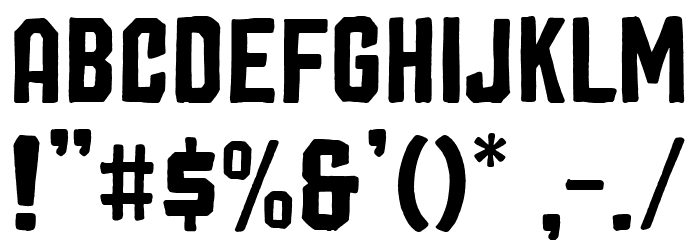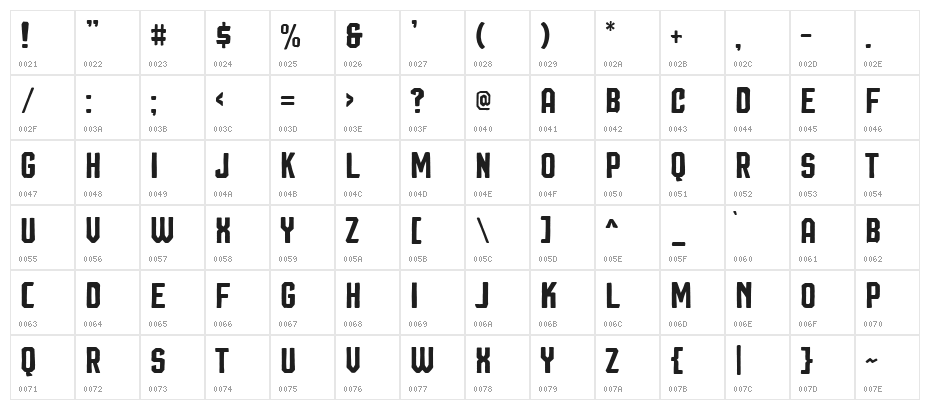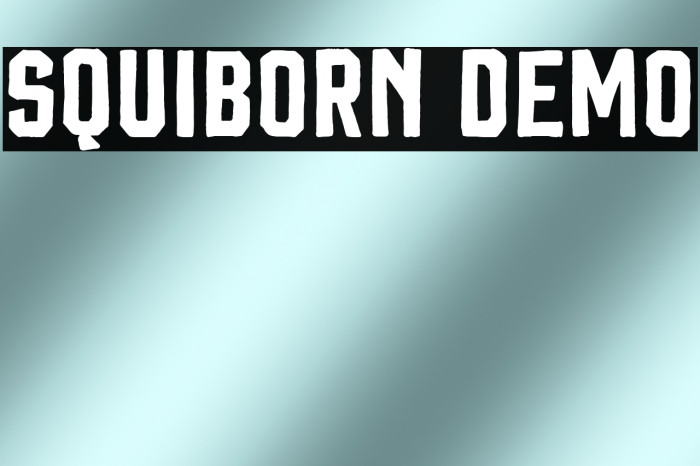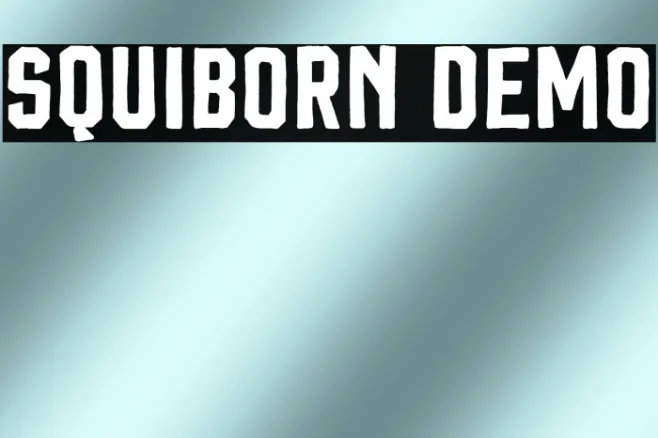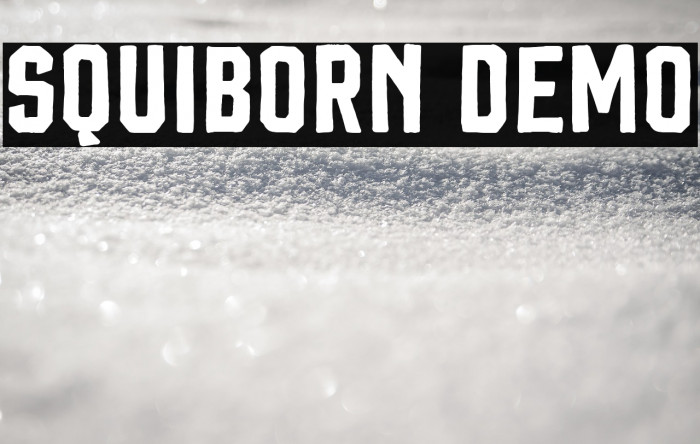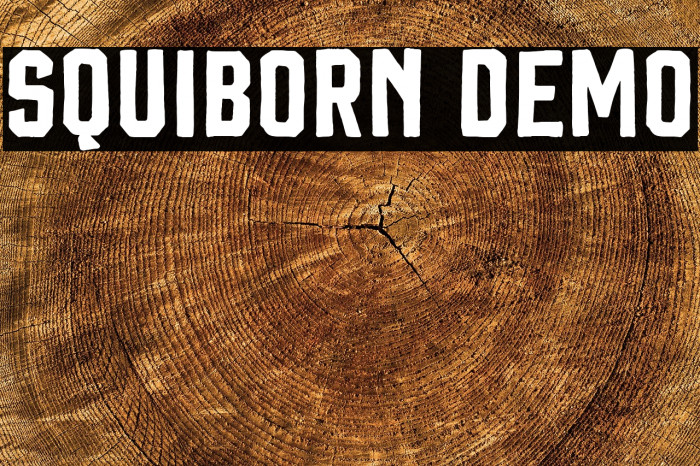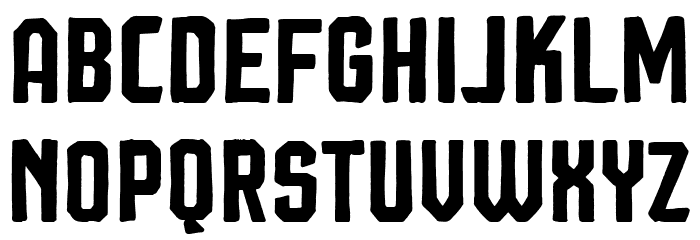
Squiborn DEMO Font
Squiborn DEMO Description
This font features a bold and impactful design with a strong presence. The characters are blocky and geometric, giving them a sturdy and robust appearance. The edges are slightly rounded, adding a touch of softness to the otherwise solid structure. The uppercase letters are uniform in height, creating a cohesive and balanced look. The font includes a full set of uppercase letters, numbers, and a variety of special characters, making it versatile for different design needs. Its boldness and unique style make it stand out, perfect for projects that require a strong visual impact.
| Proposed Projects | Ideal for posters, headlines, branding, and any project needing a bold statement. |